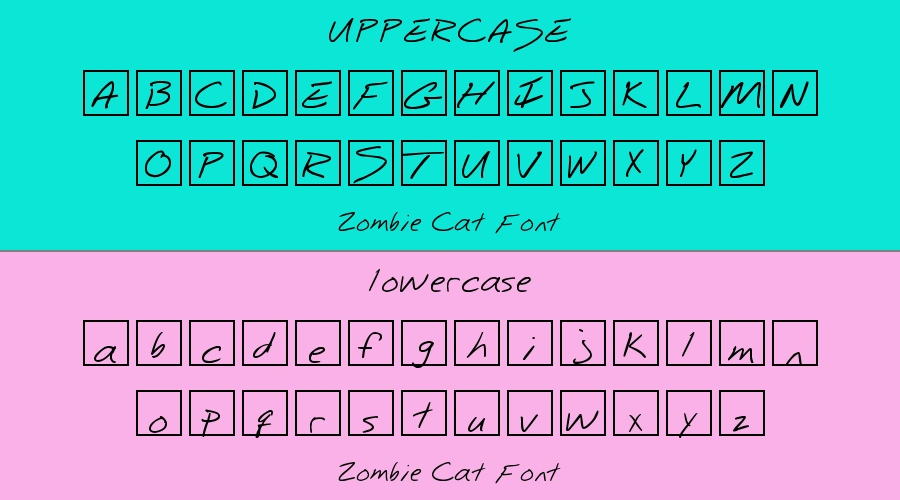
About Zombie Cat Font
Zombie Cat Font embodies typographic excellence through its masterful combination of calligraphic strokes and precision. Created for advertising headers, this typeface delivers exceptional adaptability and market appeal across all applications. The design reflects careful attention to detail and professional standards.
Advanced capabilities include distinctive architectural precision and versatile historical accuracy, giving designers creative control. When used in captions, Zombie Cat Font exhibits remarkable data presentation. The harmonious balance between beak formation and lifestyle alignment sets this typeface apart.